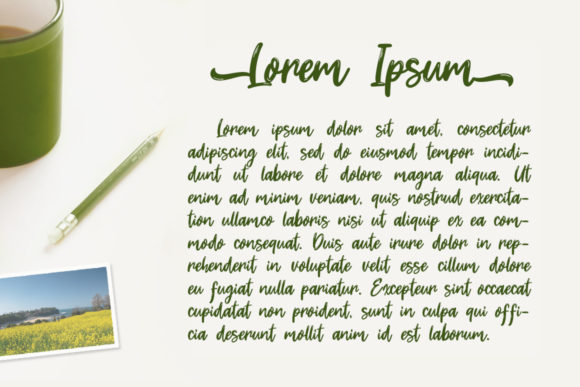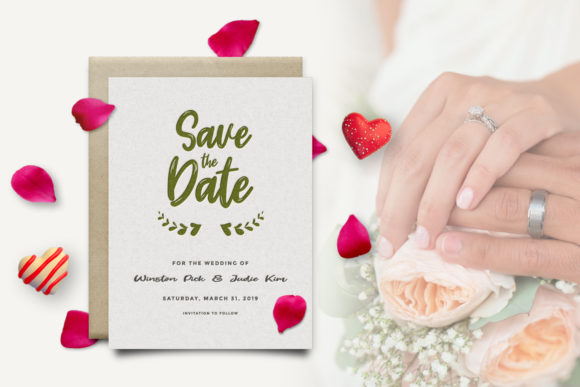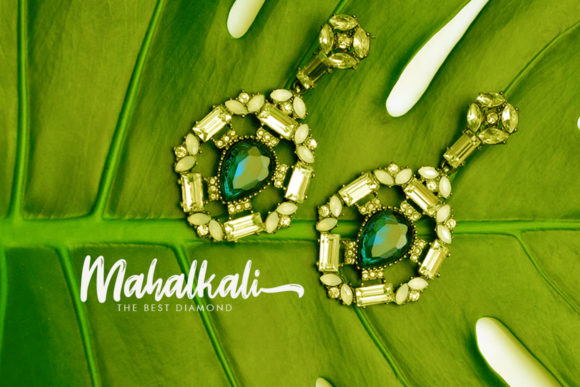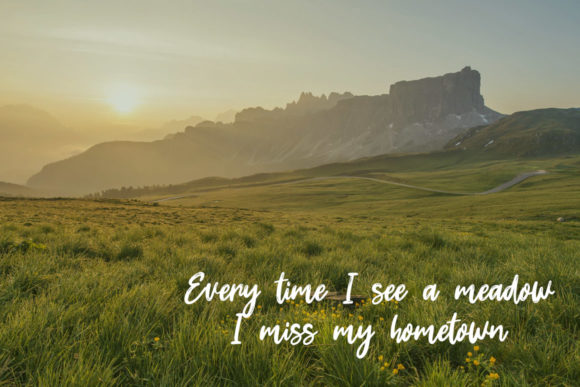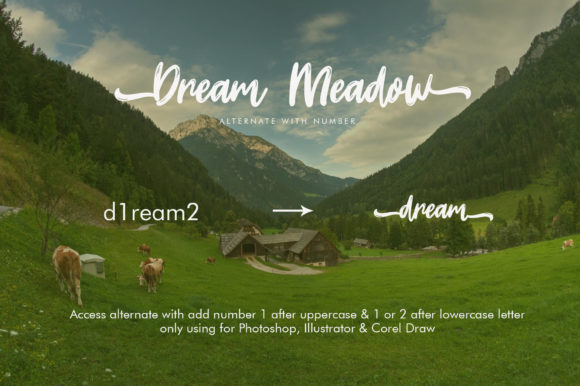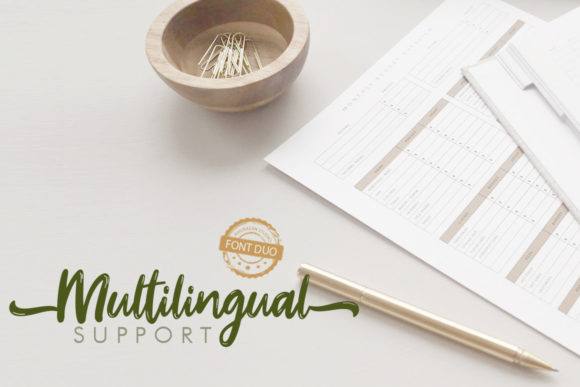
Introduction to Dream Meadow Font
Dream Meadow is a modern calligraphy font duo.
It has a fun feel and is perfect for adding a cheerful touch to your designs .
Key Features of Dream Meadow Font